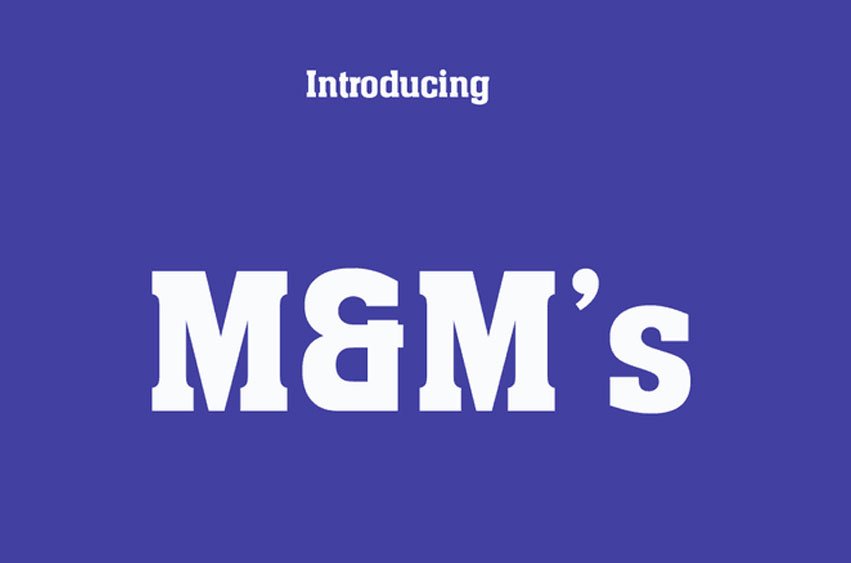
M&M’s Logo Font stands for M&M brand and the font used in creating its logo; many may not know this candy brand’s origins are from America but its influence quickly expanded into major markets around the globe, not only within its native country. M&M was created in 1941, quickly expanding across many major domestic and foreign economies as quickly as it could.
The “m” that appears in the M&M logo bears many resemblances to two high-end Slab Serif fonts known as Aachen SB-Medium Font and ITC Lubalin Graph Demi font, both available commercially. With careful observation, there’s almost no discernible difference between their letters and those appearing in M&M logo characters.